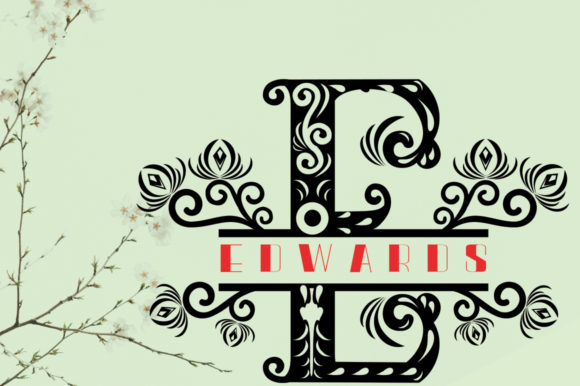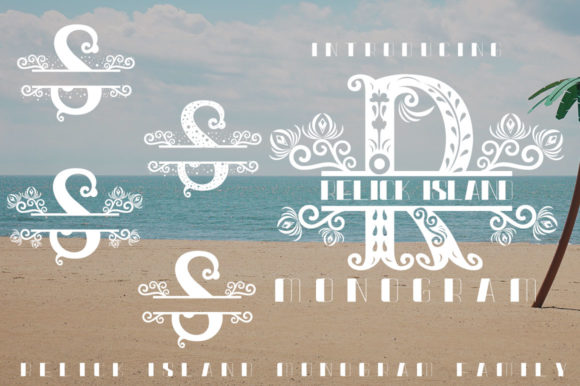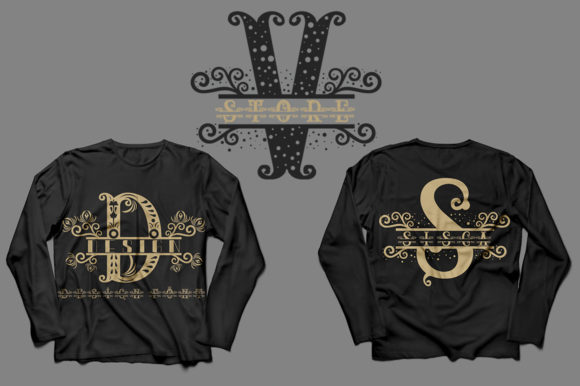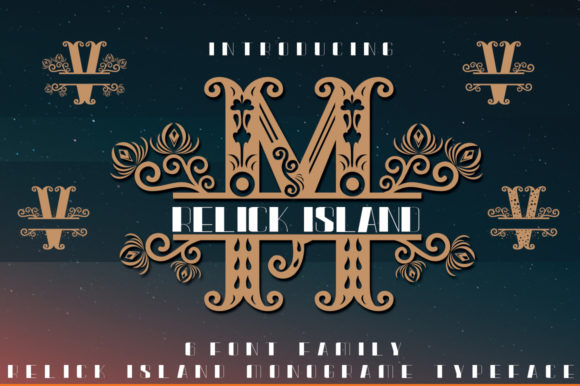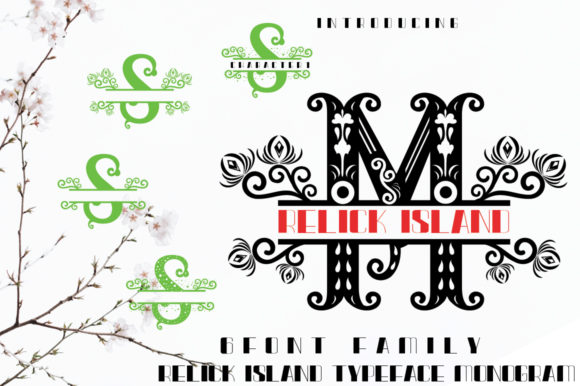
Introduction to Relick Island Font
Have you ever stared at a blank page, waiting for inspiration to strike? That’s where I was when I discovered the enchanting Relick Island Font. Its whimsical charm immediately captured my attention, and I knew I had to dive in and explore its beauty.
As designers, we’re constantly on the lookout for that special something that sets our creative projects apart. Relick Island Font delivers just that – a unique blend of elegance and playfulness that’s sure to elevate any design. Whether you’re working on a personal project or a client’s brief, this font is a valuable addition to your design resource arsenal.
What I love most about Relick Island Font is its versatility – from its transparent background to its high-quality design, it’s the perfect choice for any creative project that demands attention to detail.
Key Features of Relick Island Font
- Unique, hand-drawn design perfect for creative projects and adding a personal touch
- Perfect design resource for artists, designers, and writers looking for a unique and creative font
Honest Review: Relick Island Font
I recently had the chance to work with the Relick Island Font, and I must say it’s been a game-changer for my creative project. This font is a high-quality design resource that offers a lot of versatility and style.
- ✨ Beautifully designed with a unique aesthetic that’s perfect for creative projects
- ✨ Includes a transparent background, making it easy to use on any design surface
- ⚠️ Limited character set, which may be a problem for designers who need a wide range of characters
The Relick Island Font is a great resource for any creative project that requires a unique and high-quality font. Some common use cases include:
- Branding and marketing materials
- Graphic design projects
- Web design projects
- Print design projects
Is the Relick Island Font a high-quality design resource?
Yes, the Relick Island Font is a high-quality design resource. It has been carefully crafted to provide a unique and stylish look for your creative projects. The font features a clean and elegant design, making it perfect for use in logos, branding, and other design elements. Its high quality ensures that it will look great in various sizes and resolutions.